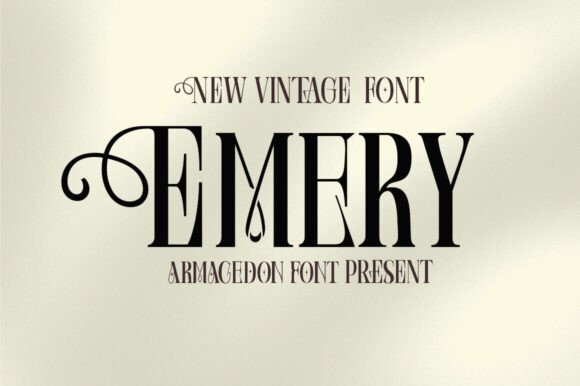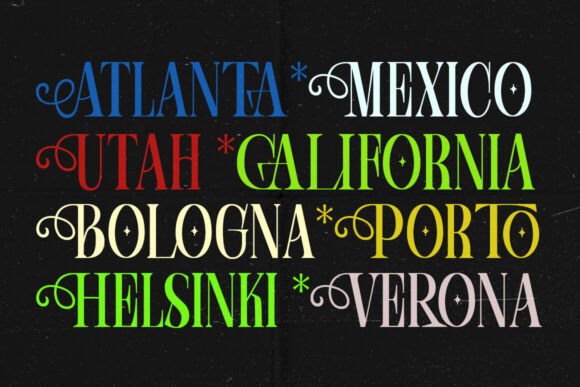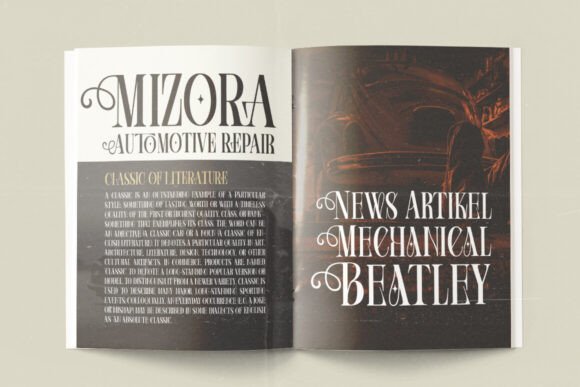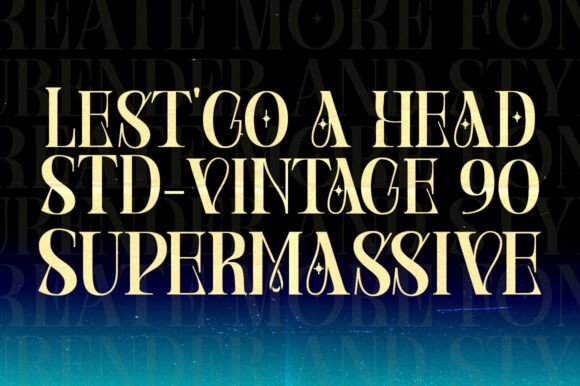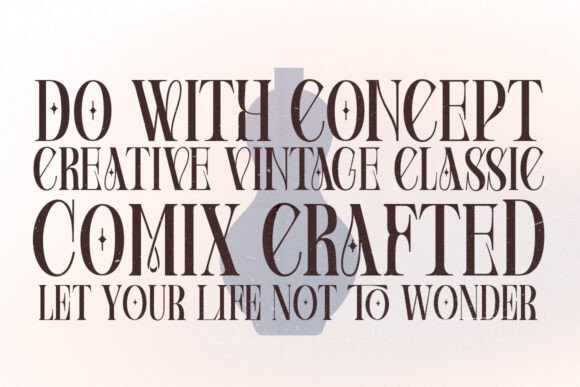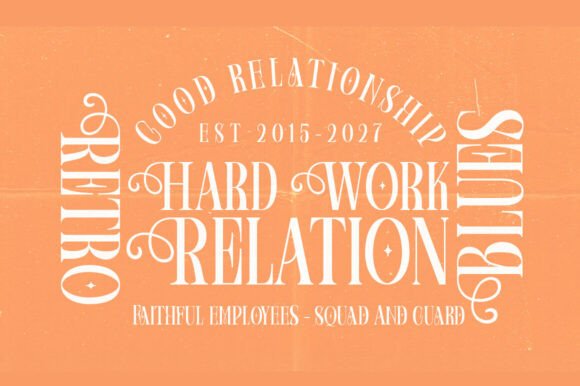
Introducing Armagedon Font: A Retro Style Masterpiece with a Modern Twist
In the world of typography, fonts play a crucial role in conveying messages, expressing emotions, and creating visual identities. For designers and crafters, finding the perfect font can be a daunting task, especially when looking for something unique and attention-grabbing. This is where Armagedon Font comes in – a retro-style font that combines extreme cuts, sharp angles, and interactive ligatures to create a truly one-of-a-kind typeface.
The Inspiration Behind Armagedon Font
Armagedon Font is a result of careful consideration and meticulous design. The creators aimed to craft a font that not only pays homage to retro typography but also pushes the boundaries of modern design. The result is a font that exudes a sense of boldness, confidence, and edginess, making it perfect for designers and crafters looking to add a touch of personality to their projects.
Key Features of Armagedon Font
So, what makes Armagedon Font stand out from the rest? Here are some of its key features:
- Extreme Cuts and Sharp Angles: Armagedon Font boasts extreme cuts and sharp angles that give it a bold and edgy look. These distinctive features make it perfect for headlines, titles, and other attention-grabbing applications.
- Interactive Ligatures: The font includes interactive ligatures that add an extra layer of creativity and visual interest. These ligatures allow designers to create unique and dynamic text arrangements that are sure to capture the audience’s attention.
- Three Capitalized Subfamilies: Armagedon Font comes in three capitalized subfamilies, each with its own distinct style and personality. This allows designers to choose the perfect variation to suit their project’s tone and aesthetic.
- Bold Character Separation: The font features bold character separation, which creates a sense of grandeur and sophistication. This makes it ideal for use in titles, headings, and other display text.
- Considered Ligature Standards: Armagedon Font adheres to considered ligature standards, ensuring that the text remains clear and readable, even at smaller sizes.
Design and Craft Applications
Armagedon Font is an incredibly versatile typeface that can be used in a wide range of design and craft applications, including:
- Graphic Design: Use Armagedon Font to create eye-catching posters, flyers, and brochures that demand attention.
- Branding and Identity: The font’s bold and edgy personality makes it perfect for creating unique brand identities, logos, and typographic marks.
- Crafting and DIY Projects: Add a touch of personality to your crafting and DIY projects, such as handmade cards, gift tags, and scrapbooking pages.
- Digital Design: Armagedon Font can be used in digital design applications, including website headers, social media graphics, and digital advertising.
Armagedon Font is a game-changing typeface that combines retro charm with modern flair. Its extreme cuts, sharp angles, and interactive ligatures make it a standout in the world of typography. Whether you’re a designer, crafter, or DIY enthusiast, Armagedon Font is sure to inspire and elevate your creative projects. With its versatility, range, and attention-grabbing personality, this font is set to become a favorite among creative professionals and hobbyists alike.